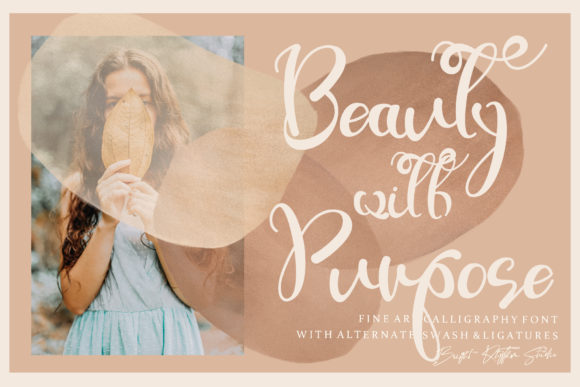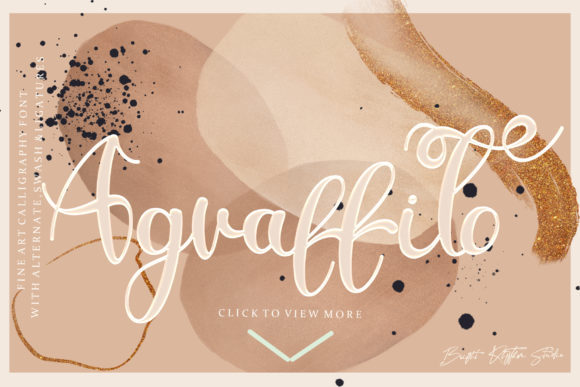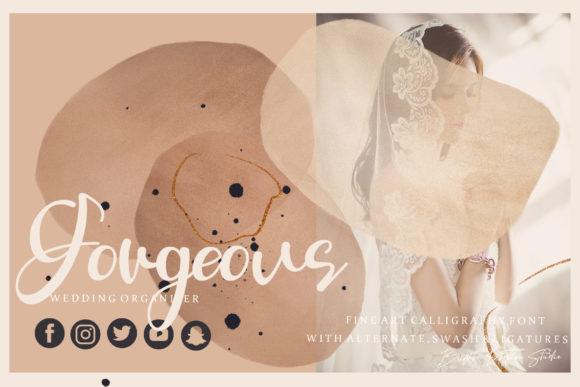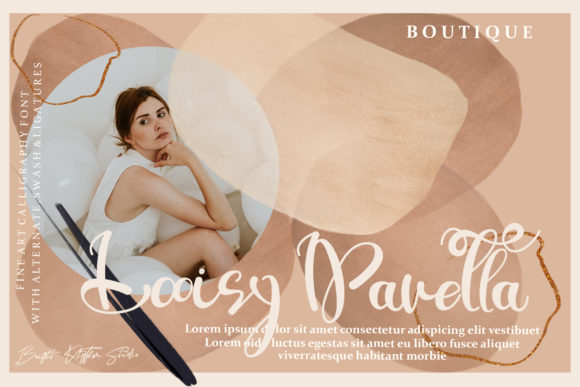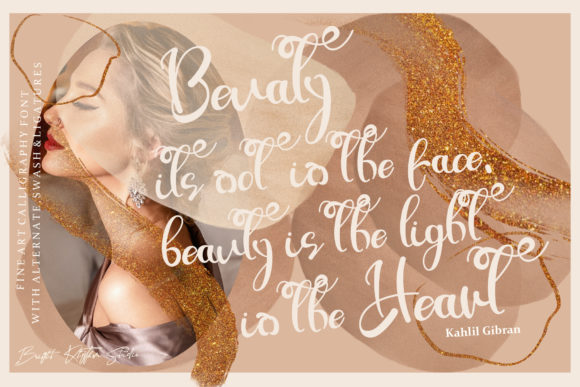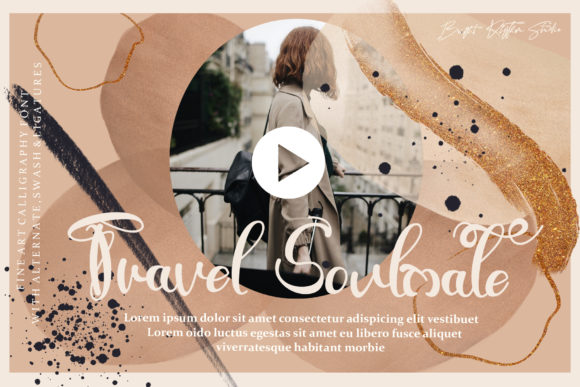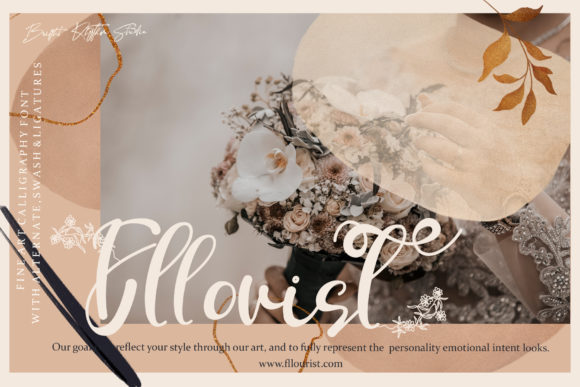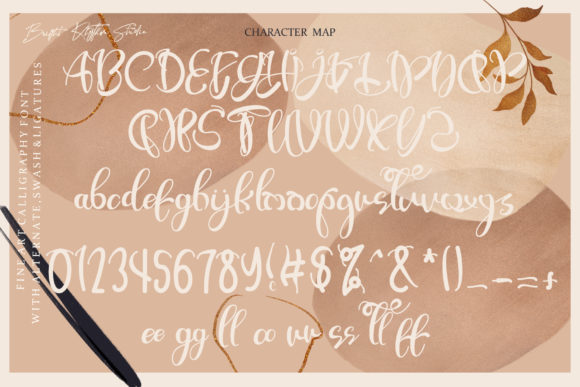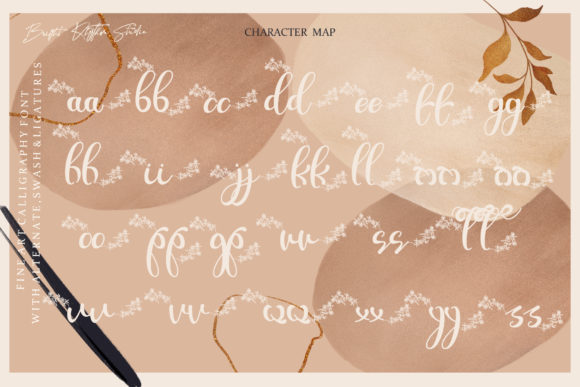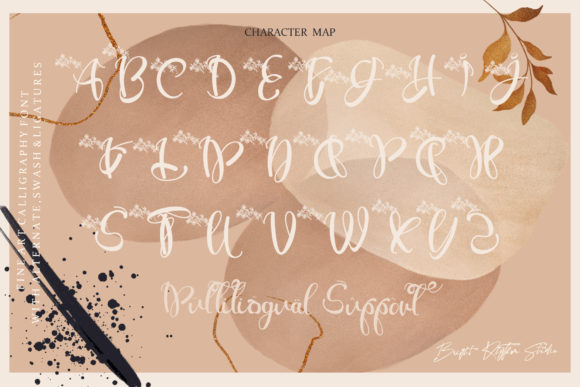
Agraffito Font
About Agraffito Font
“Agraffito” sounds like a beautiful and smooth handwritten font with a delightful nature theme. With its simplicity and ease of use, this font becomes a versatile and captivating addition to your various craft designs.
By incorporating “Agraffito” into your crafting projects, you can create a serene and organic look. Its nature-inspired style adds a touch of authenticity, making your designs feel more connected to the natural world.
This font’s beauty shines through in various craft endeavors, such as handmade cards, nature journals, DIY crafts, and more. Whether you’re creating something inspired by the outdoors or expressing your creativity through crafting, “Agraffito” can be the perfect companion to add that natural touch.
Its smooth and flowing nature allows it to blend seamlessly with various craft themes and styles. Whether you’re going for a rustic and earthy look or a contemporary and clean aesthetic, “Agraffito” can adapt to your creative vision.
When mixing “Agraffito” with your craft designs, feel free to experiment with different font sizes, styles, and colors. Its smoothness and nature theme make it a great choice for headlines, subheadings, or even as decorative elements within your designs.
While indulging in your creativity, remember to maintain readability and legibility. Proper spacing and alignment between letters ensure that the text remains clear and easy to read, even in more intricate designs.
The PUA encoding of “Agraffito” is a fantastic feature that grants easy access to all the glyphs and swashes it offers. This enables you to explore various stylistic variations and decorative elements, making your crafting projects truly unique and personalized.
In conclusion, “Agraffito” is a smooth handwritten font with a nature theme that can add a touch of serenity and beauty to your craft designs. Its simplicity and PUA encoding make it an ideal choice for various creative endeavors. Embrace the essence of nature in “Agraffito” and let it be the font that brings a natural and captivating flair to your crafting journey, making your designs even more beautiful and harmonious with the world around us.